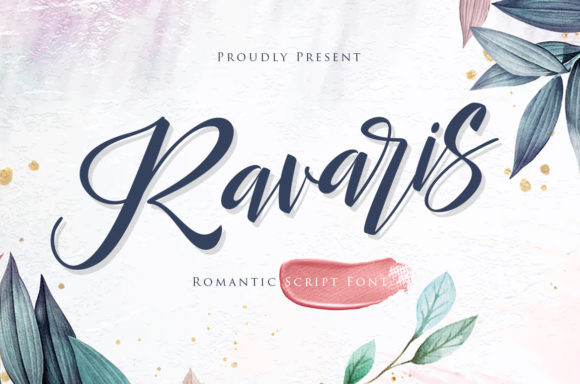
Welcome to the world of Ravaris Font, a spirited script font that dances with the melody of fun, quirkiness, and authenticity. Created by the talented artists at Fontruly, Ravaris is not just a collection of letters; it's an ensemble of characters bursting with personality.
Step into a realm where your creative ideas take center stage, adorned with the captivating charm of Ravaris. Its playful and childlike essence transforms ordinary designs into extraordinary masterpieces. Embrace the whimsical nature of this font and let your imagination run wild.
Ravaris is an ideal companion for kids' projects, adding a touch of enchantment to school assignments, birthday cards, and imaginative stories. Its playful curves and charming personality bring life to any concept, making every word a delightful adventure.
But the magic of Ravaris doesn't stop at child's play. Unleash its versatility in creating eye-catching logos that radiate a unique and memorable aura. Its ability to capture attention makes it perfect for branding and identity projects, ensuring your brand shines brightly in a crowded marketplace.
Dip your creative brush into the palette of Ravaris and paint social media posts, flyers, and posters that command attention. Its enchanting appeal invites viewers to delve into your content, creating a connection that sparks engagement.
Ravaris is a font that speaks with a voice of its own, a voice that echoes laughter, mischief, and boundless creativity. It's a symphony of characters that dance across the screen, leaving a trail of joy and inspiration.
Embrace the magic of Ravaris, and let your creative spirit soar. Transform your projects into works of art, and let your brand shine with a distinctive personality. The world is your canvas, and Ravaris is your brush. Paint your dreams into reality and let your imagination flourish.